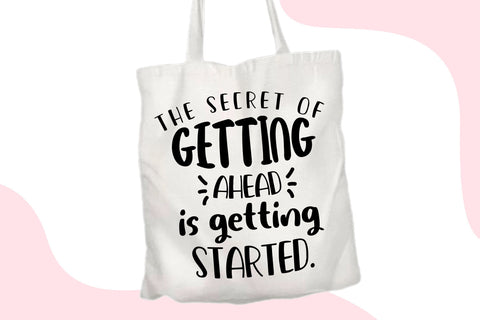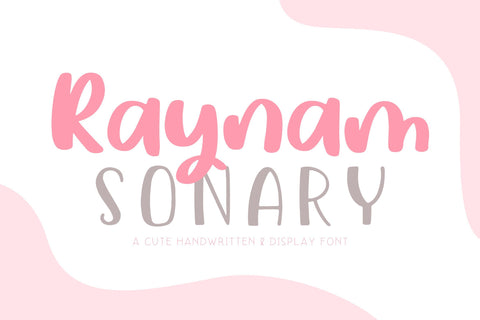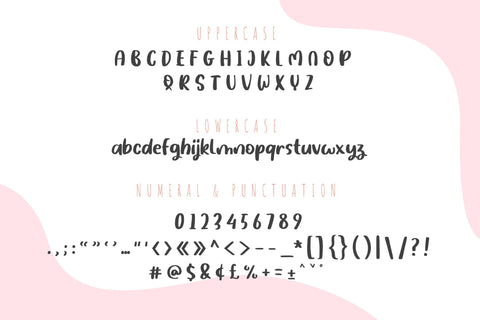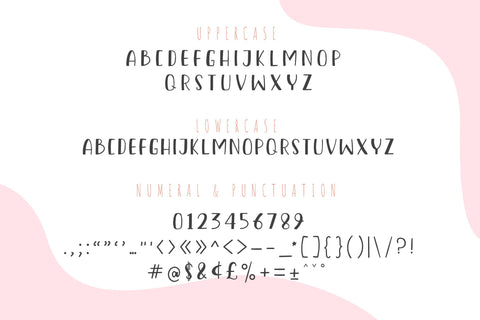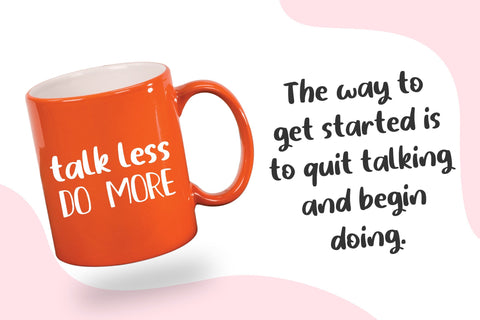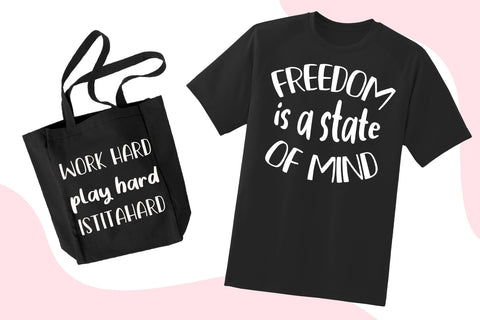
Raynam Sonary Font Duo
Raynam Sonary Font Duo is a cool and versatile duo font (sans serif and handwritten). Fall for its ravishing style and use it to create gorgeous wedding invitations, beautiful stationary art, eye-catching social media posts, and much more!